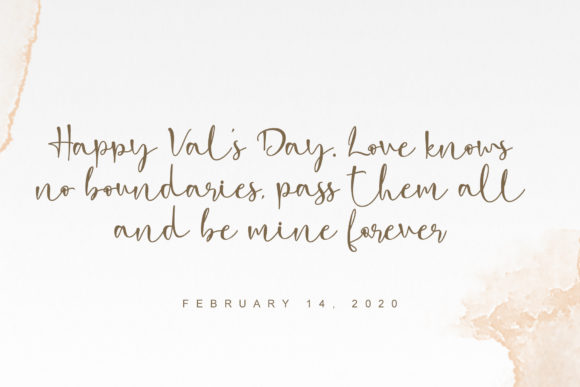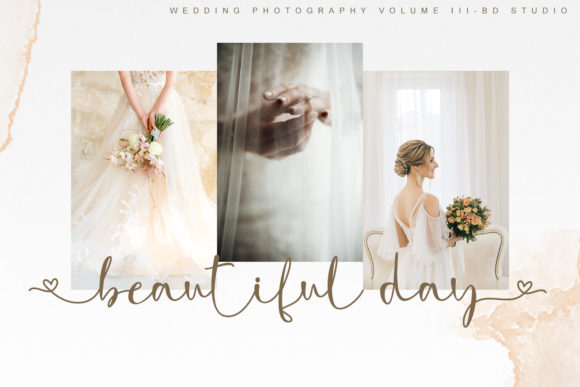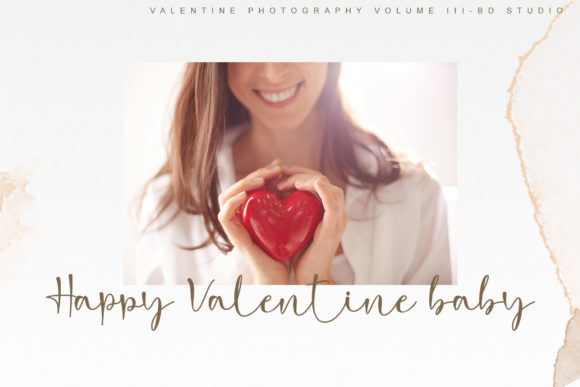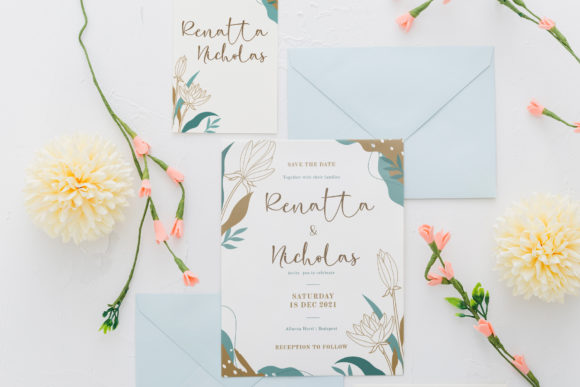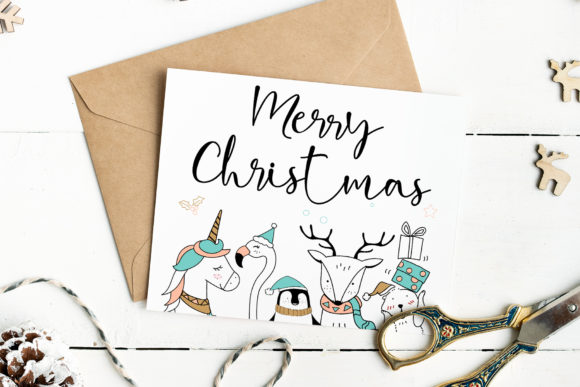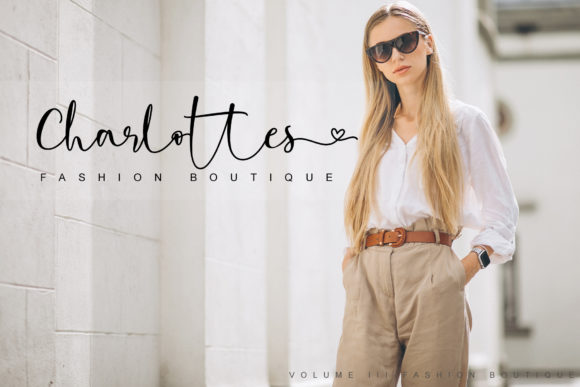
Discover the Elegance of Clarissa Font: Elevate Your Designs with a Touch of Sophistication
Are you a designer or crafter looking for a font that exudes charm and elegance? Look no further than the Clarissa Font. This beautiful, handwritten font is perfect for adding a touch of sophistication to a variety of design projects, from wedding invitations and greeting cards to logos and business cards.
The Characteristics of Clarissa Font
Clarissa Font is a stunning, modern script font that feels equally charming and elegant. Its flowing lines and delicate curves make it perfect for designs that require a personal touch. The font is PUA encoded, which means you can access all of the glyphs and swashes with ease, giving you endless possibilities for creative expression.
Wedding invitations, thank you cards, and other event-related designs are a perfect match for Clarissa Font. The font’s elegant and sophisticated feel makes it ideal for formal events, while its charming and whimsical touch adds a romantic flair. With Clarissa Font, you can create beautiful and memorable designs that will leave a lasting impression on your guests.
Ideal for Quotes, Greeting Cards, and Logos
Clarissa Font is also perfect for designs that require a more personal and creative touch. Use it to add a handwritten feel to quotes, greeting cards, and logos. The font’s unique and elegant style will make your designs stand out and leave a lasting impression on your audience.
Business Cards and Stationery
Make a great first impression with Clarissa Font on your business cards and stationery. The font’s professional and elegant feel makes it perfect for corporate designs, while its charming and whimsical touch adds a personal touch. With Clarissa Font, you can create beautiful and effective designs that will help you establish your brand identity.
PUA (Private Use Area) encoding is a feature that allows designers to access a wide range of glyphs and swashes, giving them more creative freedom and flexibility. With PUA encoding, you can easily access and use the various glyphs and swashes in Clarissa Font, making it easier to create unique and beautiful designs.
Benefits of Using Clarissa Font
- Elegant and charming design that adds a touch of sophistication to your projects
- Perfect for wedding invitations, thank you cards, quotes, greeting cards, logos, business cards, and more
- Unique and creative style that will make your designs stand out
- Professional and elegant feel that’s perfect for corporate designs
Tips for Using Clarissa Font
Here are a few tips for using Clarissa Font in your designs:
- Experiment with different font sizes and styles to find the perfect look for your project
- Use the glyphs and swashes to add a personal touch to your designs
- Pair Clarissa Font with other fonts to create a unique and interesting contrast
- Don’t be afraid to get creative and try new things – Clarissa Font is versatile and adaptable
Clarissa Font is a beautiful and elegant font that’s perfect for designers and crafters looking to add a touch of sophistication to their projects. With its PUA encoding and wide range of glyphs and swashes, Clarissa Font offers endless possibilities for creative expression. Whether you’re designing wedding invitations, greeting cards, logos, or business cards, Clarissa Font is the perfect choice.